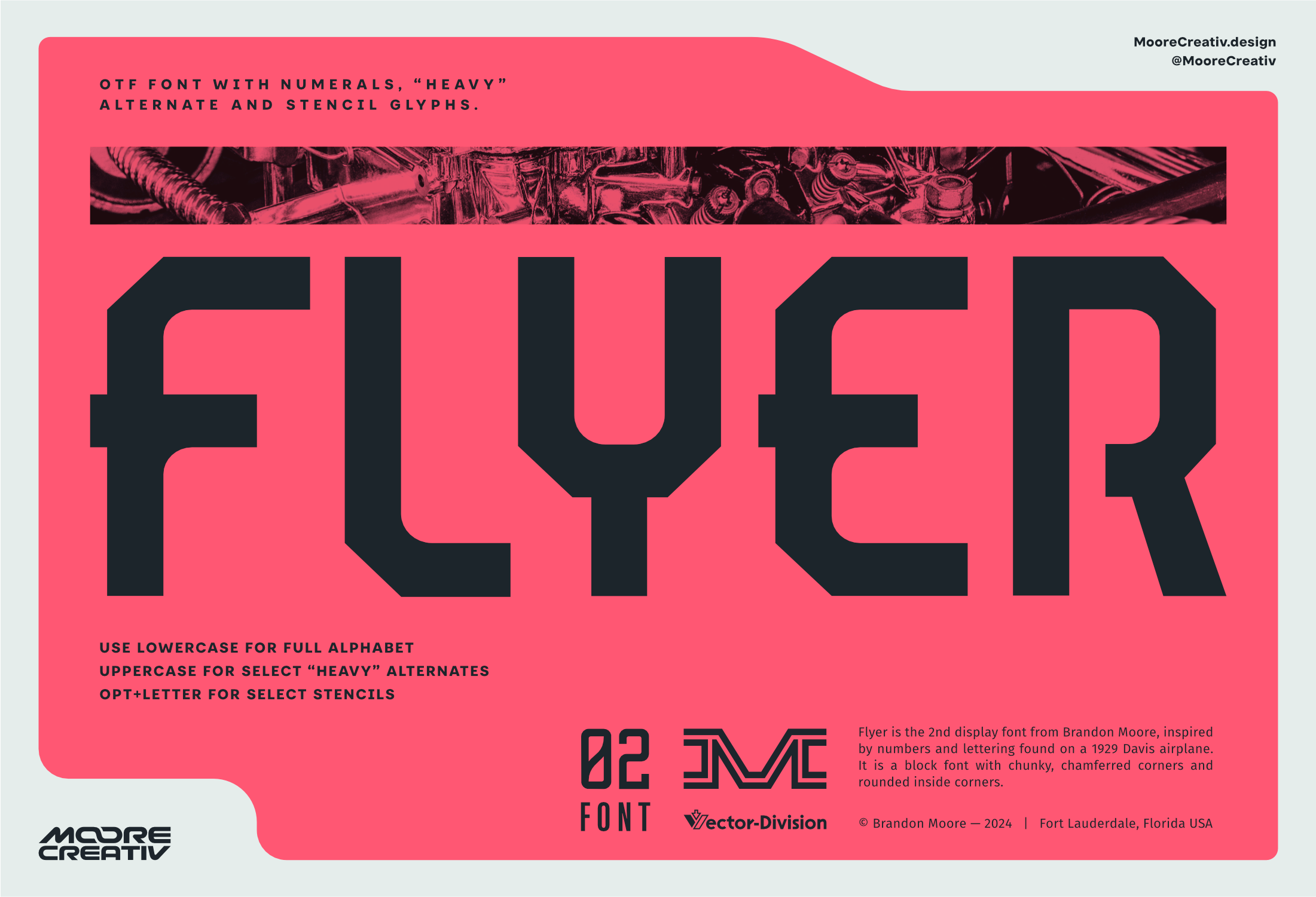
BM Flyer Font
I’ve always said one of the better things about being a Graphic Designer is spending afternoons browsing a new museum is part of the job. One day, a visit to a small history museum in Richmond, Indiana paid off well. I was admiring the numbers painted underneath the wings of a 1929 Davis D-1 airplane and found an idea for a new set of numerals— and now a full font. They were block letters, fairly standard in construction and similar to the likes of United. What was interesting about these though is the inside corners were rounded and the “2” had a long diagonal line I had not seen on block numbers before. With only a few numbers and letters to work with, I set out to re-create those and complete the full alphabet. The result is BM-Flyer.